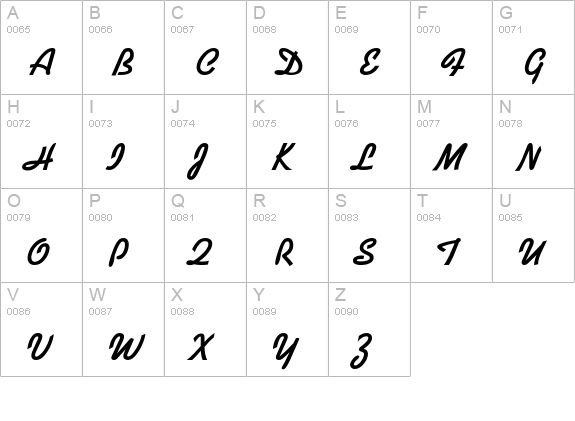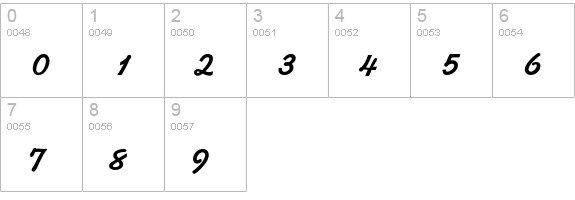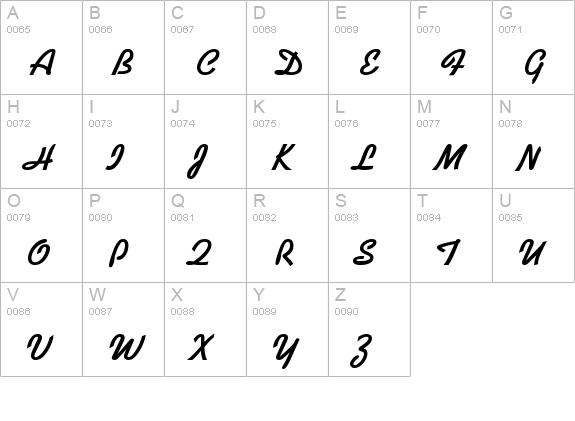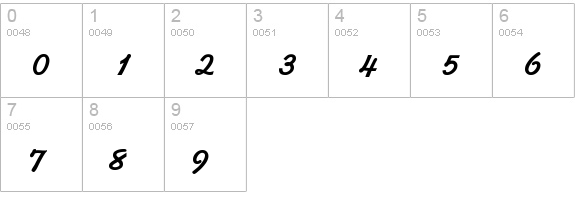
Kaplan Font Details
Introducing Kaplan, a stunning and versatile font that combines elegance with a touch of modernity. With its clean lines and effortlessly legible letterforms, Kaplan is the perfect choice for a wide variety of design projects. Crafted with meticulous attention to detail, this typeface exudes sophistication and professionalism, making it ideal for both digital and print applications. Whether you're designing a logo, creating a website, or crafting eye-catching advertisements, Kaplan will effortlessly elevate your work to new heights. One of the standout features of Kaplan is its extensive character set, which includes a wide range of accents and special characters, making it suitable for multilingual projects. This font's versatility is further enhanced by its multiple weights and styles, allowing you to experiment and find the perfect fit for your design needs. And the best part? Kaplan is available for free download exclusively at FontsMarket.com. This means that you can enhance your creative projects without spending a dime. Simply head over to FontsMarket.com, locate the Kaplan font, and begin exploring the endless possibilities it offers. So, whether you're a seasoned designer or just starting out, Kaplan is a must-have addition to your font collection. Embrace its elegance, embrace its versatility, and most importantly, embrace the freedom to create without limitations. Download Kaplan today and let your creativity soar.